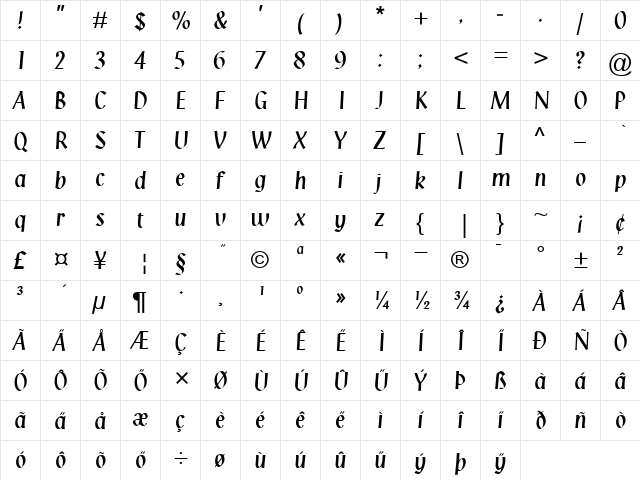
KlangMT RomanItalic
Design Context for KlangMT Typeface
KlangMT takes a measured approach to typography — its balanced proportions and neutral character make it a reliable workhorse for both digital and print work. The slanted form adds forward momentum and visual energy.
Pro Tip: Use KlangMT for emphasis, pull quotes, and subheadings where its slanted energy can add rhythm to the layout.